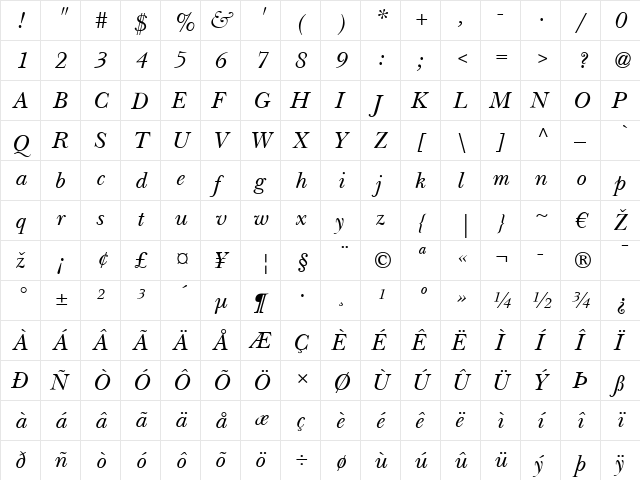
NewBaskerville LT Italic
Design Context for NewBaskerville LT Typeface
NewBaskerville LT is a composed and adaptable typeface that performs quietly and consistently across a wide range of design contexts. The dynamic lean of this cut emphasises speed and emphasis in any layout. The delicate stroke weight brings airiness and refinement to layouts.
Pro Tip: Use NewBaskerville LT for emphasis, pull quotes, and subheadings where its slanted energy can add rhythm to the layout.